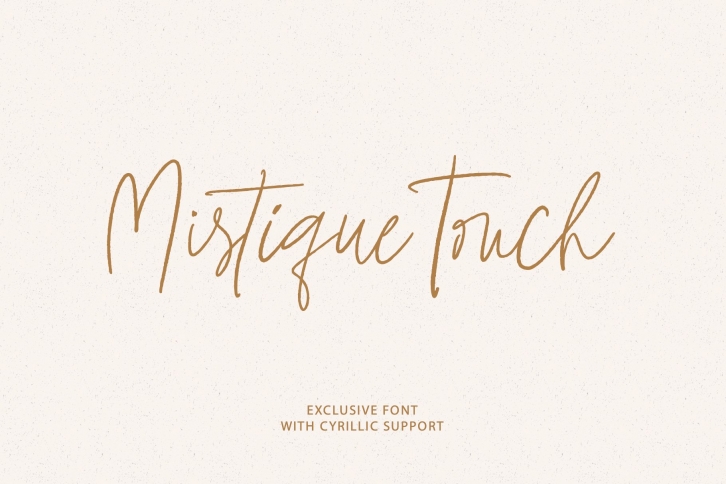
Mistique Touch Latin & Cyrillic is a great font that was designed by MediaLab. Imagine the amount of combinations you can create using this font! The archive is 2.95 MB and it was released on May 18, 2020. Mistique Touch Latin & Cyrillic looks beautiful on wedding invitations, greeting cards, logos, posters, labels, t-shirt designs, logos, business cards and is perfect for use in ink or watercolor works, fashion, magazines, packaging and food menus, children's books and more!